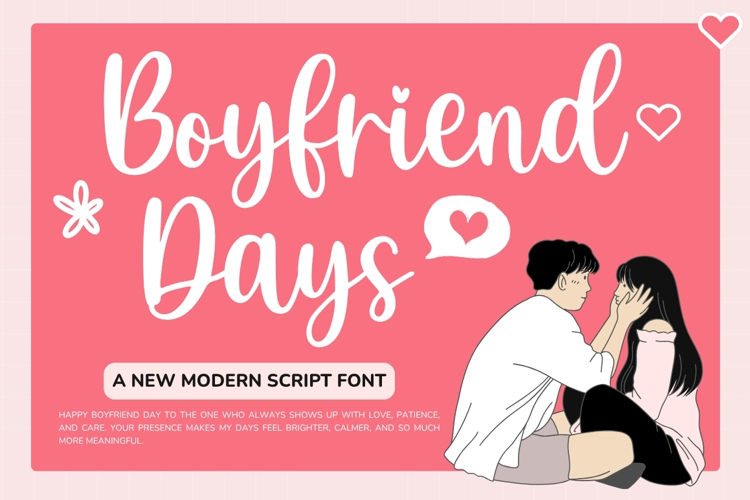
Boyfriend Days
Boyfriend Days is an elegant and effortlessly expressive handwritten script font, crafted to capture the warmth of modern romance with a sophisticated touch. Its smooth, flowing strokes and graceful curves create a beautiful handwritten rhythm that feels both intimate and refined.
With its stylish personality and natural flow, Boyfriend Days is perfect for romantic branding, wedding stationery, invitations, fashion logos, signature designs, greeting cards, quotes, packaging, social media, and editorial projects.
Elegant yet relaxed, romantic yet modern, Boyfriend Days brings a timeless handwritten charm to every word—perfect for designs that deserve to feel best, beautiful, and unforgettable.